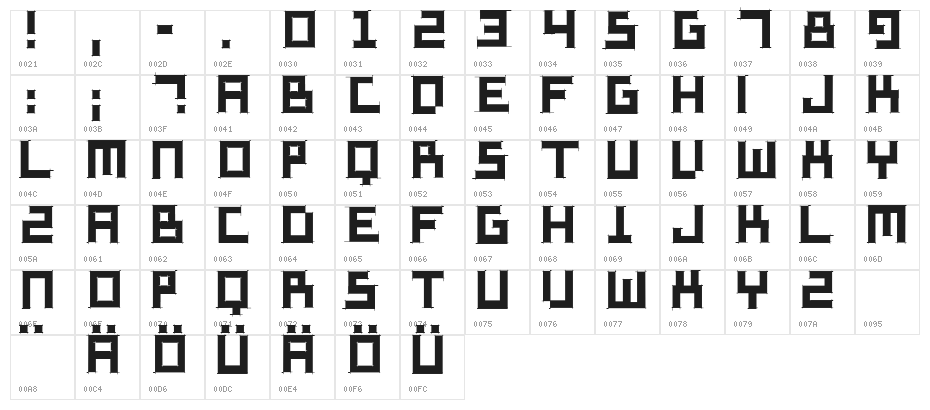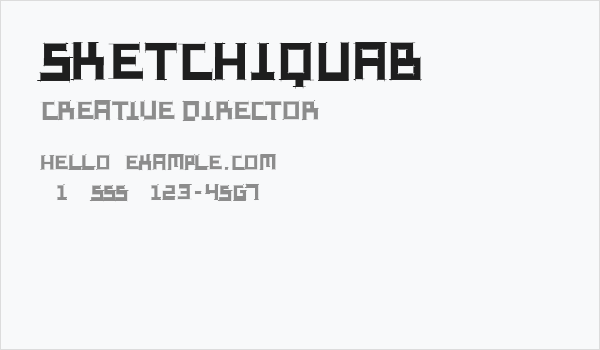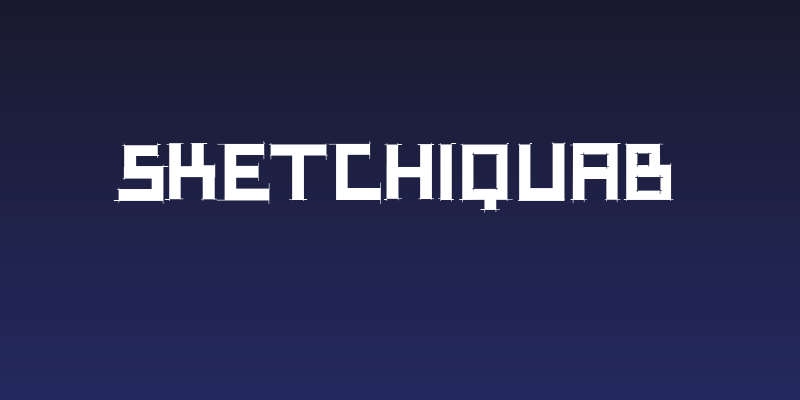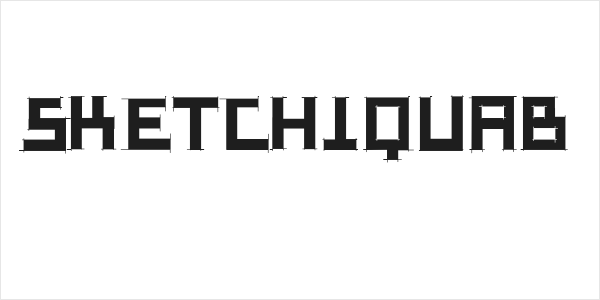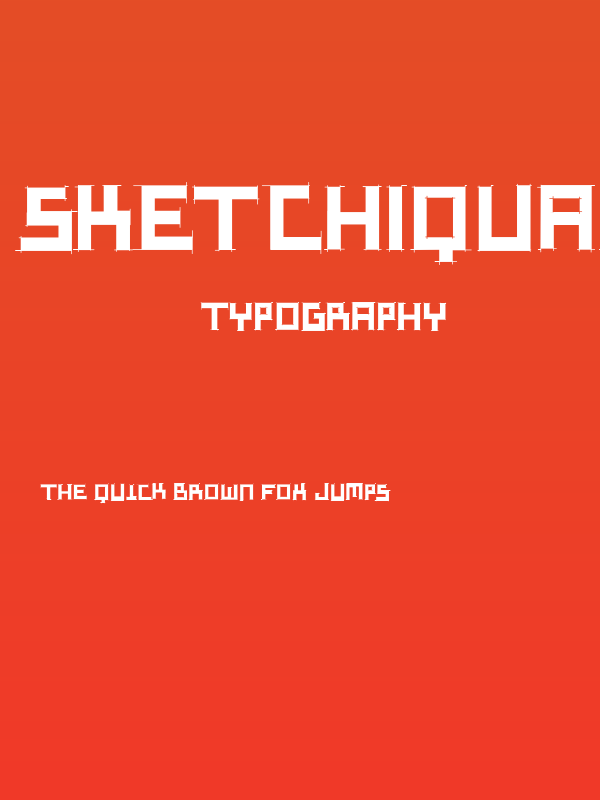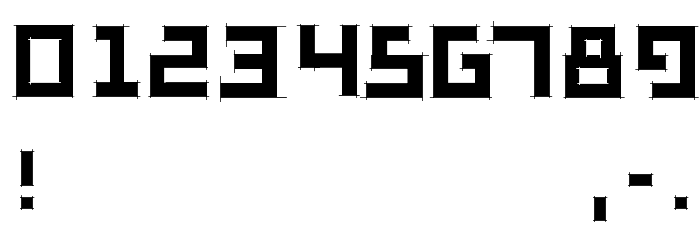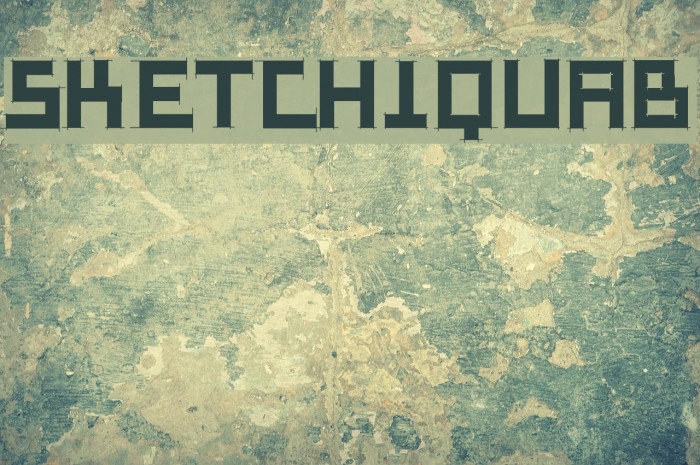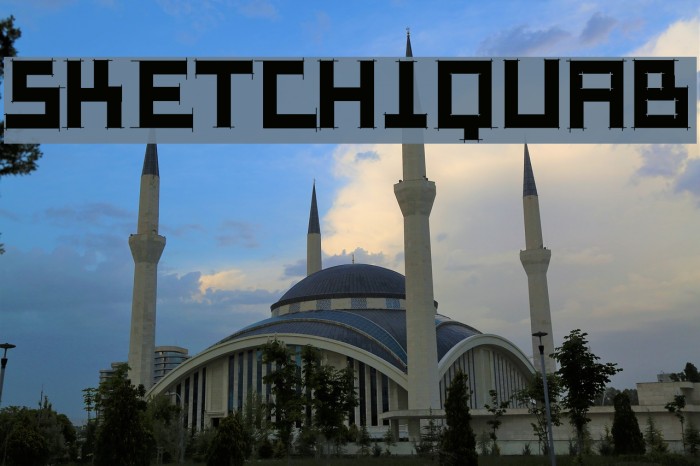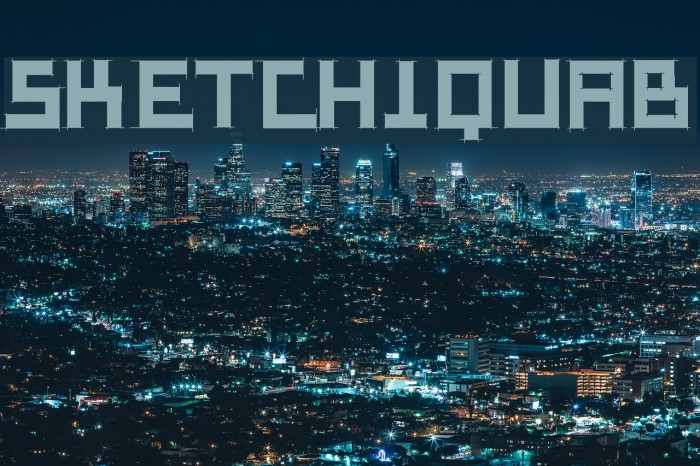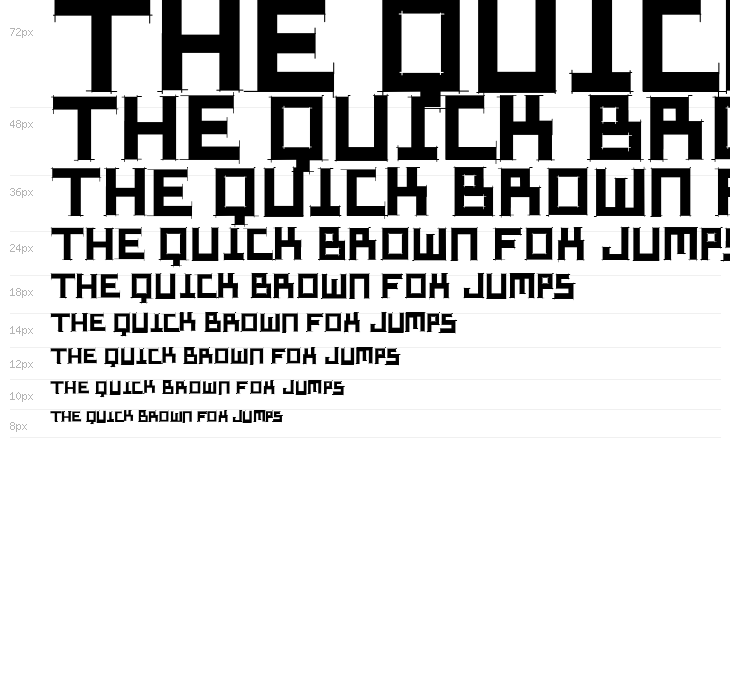
SketchiquaB Font
SketchiquaB Description
This font features a bold, geometric design with sharp, angular edges and a blocky appearance. The characters are uniformly structured, creating a cohesive and modern aesthetic. The uppercase letters are particularly striking, with a consistent height and width that enhances readability. The lowercase letters maintain the same geometric style, ensuring a seamless transition between cases. Numbers are equally bold and clear, making them suitable for a variety of applications. Special characters are designed to match the overall style, providing a complete and versatile character set. The font's strong lines and uniformity make it ideal for projects that require a contemporary and impactful look.